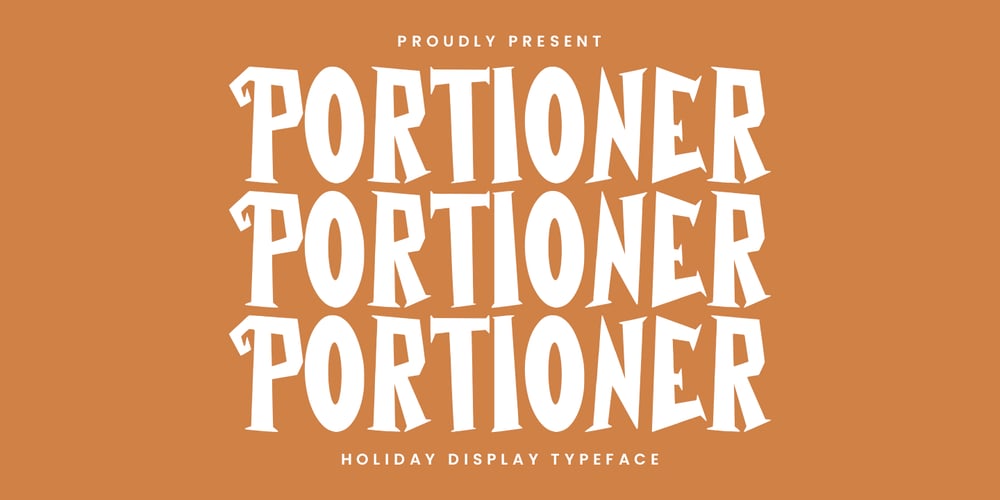
Portioner
Portioner font
Portioner Font Family was designed by Gilang Maulana and published by Maulana Creative. Portioner contains 1 styles and family package options. Portioner holiday display typeface. With bold tall sharp edge stroke, fun character with a bit of ligatures and alternates. To give you an extra creative work. Portioner holiday display typeface support multilingual more than 100+ language. This font is good for logo design, Social media, Movie Titles, Books Titles, a short text even a long text letter and good for your secondary text font with sans or serif. Make a stunning work with Portioner holiday display typeface.-Uppercase Cheers,Maulana Creative